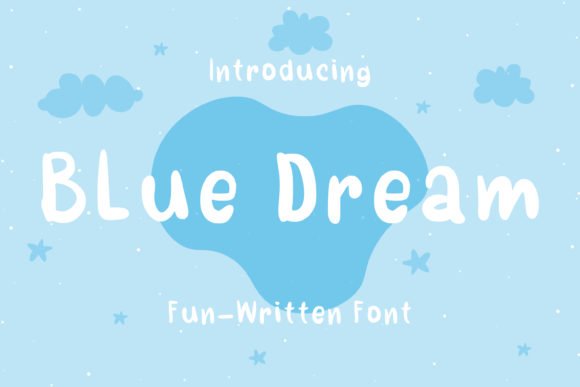
Unleash Your Creativity with Blue Dream Font
Do you remember the rush of excitement when you’re brainstorming ideas for a new project? The spark of creativity ignites, and you can’t wait to bring your vision to life. For designers, this feeling is what drives us to create something truly special. And that’s exactly what you’ll get with the Blue Dream Font – a playful and friendly handwritten font that’s perfect for adding a personal touch to your projects.
Whether you’re designing greeting cards, invitations, or stickers, the Blue Dream Font is a versatile choice that’s sure to make your creations stand out. Its friendly and approachable vibe makes it an ideal choice for designers who want to add a human touch to their work. With the Blue Dream Font, you can elevate your designs and make them more engaging and relatable.
Blue Dream Font Key Features
- Font Family: Blue Dream is a sans-serif font family.
- Unique Characteristics: The font features a unique blend of modern and minimalist design elements, making it perfect for digital products and branding.
- Language Support: Blue Dream supports a wide range of languages, including Latin, Cyrillic, and Greek alphabets.
Designer Review: Blue Dream Font
Overall, I’d say the Blue Dream Font is a decent choice for casual, creative projects. It’s ✨ elegant and soothing, with a subtle dreamy quality that’s perfect for artistic expressions.
Here are some of its standout features:
- ✨ The font’s curved lines and rounded edges create a soft, calming atmosphere.
- ✨ It’s relatively easy to read, even at smaller font sizes.
- ✨ The font’s weight and width variations provide a nice range of options for different design applications.
- ⚠️ The font may not be the best choice for formal or professional projects, as it’s a bit too whimsical for that type of design.
- ⚠️ The font’s dreamy quality can be a bit too much for text-heavy content, as it may get lost in the background.
- ⚠️ There are some minor spacing issues with certain character combinations.
Overall, I think the Blue Dream Font is a solid choice for designers who want to add a touch of creativity and whimsy to their projects. While it’s not perfect, it’s a great option for those who want a unique and eye-catching font that still gets the job done.
Getting the Most Out of Blue Dream Font
For best results, pair Blue Dream Font with a clean and simple design. Use it for headings and titles to create a visually appealing contrast.
Experiment with different font sizes and colors to enhance the font’s unique characteristics.
Blue Dream Font is ideal for:
- Food and beverage labels.
- Artistic and creative projects.
Alternatives to Blue Dream Font
Blue Dream Font is a popular sans-serif font known for its modern and elegant feel. However, there are other alternatives that designers can consider for their projects.
Lato Font is a clean and minimalist sans-serif font that is highly legible and versatile. It is suitable for use in headings and body text, making it a great alternative to Blue Dream Font for a wide range of applications. Compared to Blue Dream Font, Lato Font has a slightly more geometric feel and a wider range of weights.
Montserrat Font is a geometric sans-serif font that is inspired by the urban environment of Buenos Aires. It is highly versatile and can be used in a variety of applications, from headings to body text. Compared to Blue Dream Font, Montserrat Font has a more geometric feel and a wider range of weights, making it a great choice for designers who want a modern and sleek look.
Open Sans Font is a clean and modern sans-serif font that is highly legible and versatile. It is suitable for use in headings and body text, making it a great alternative to Blue Dream Font for a wide range of applications. Compared to Blue Dream Font, Open Sans Font has a slightly more rounded feel and a wider range of weights.
4. Poppins Font
Poppins Font is a modern sans-serif font that is highly legible and versatile. It is suitable for use in headings and body text, making it a great alternative to Blue Dream Font for a wide range of applications. Compared to Blue Dream Font, Poppins Font has a slightly more rounded feel and a wider range of weights, making it a great choice for designers who want a clean and modern look